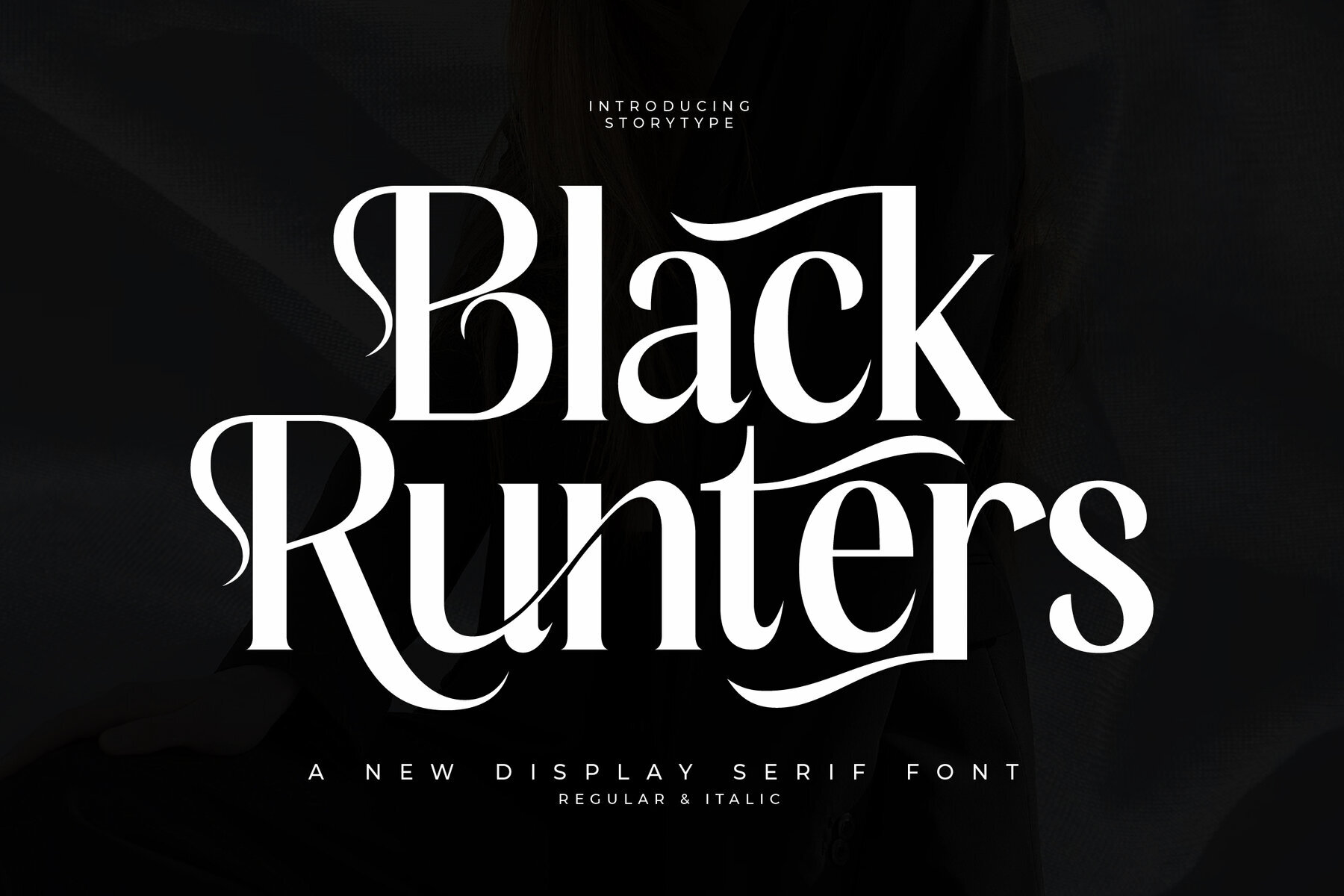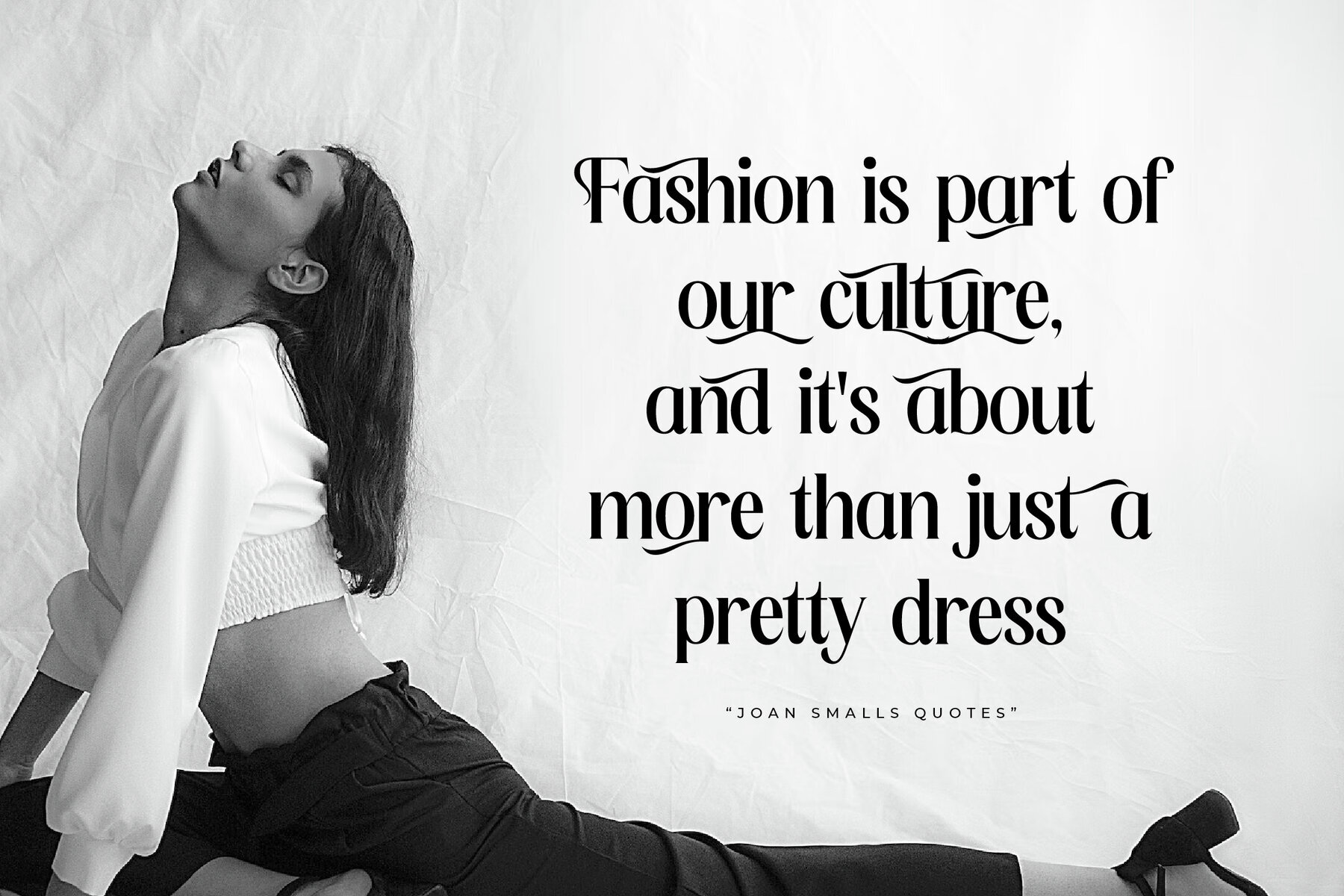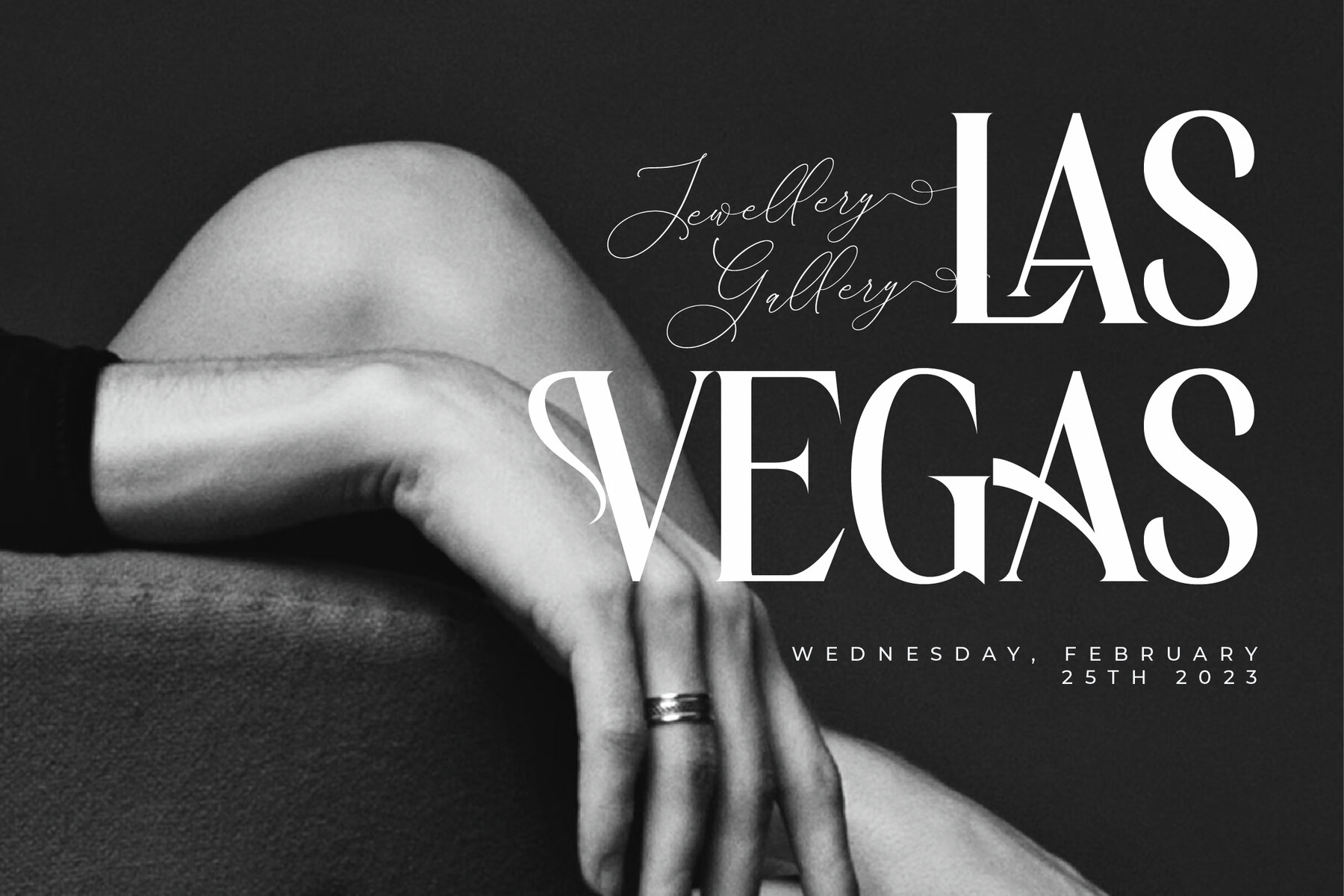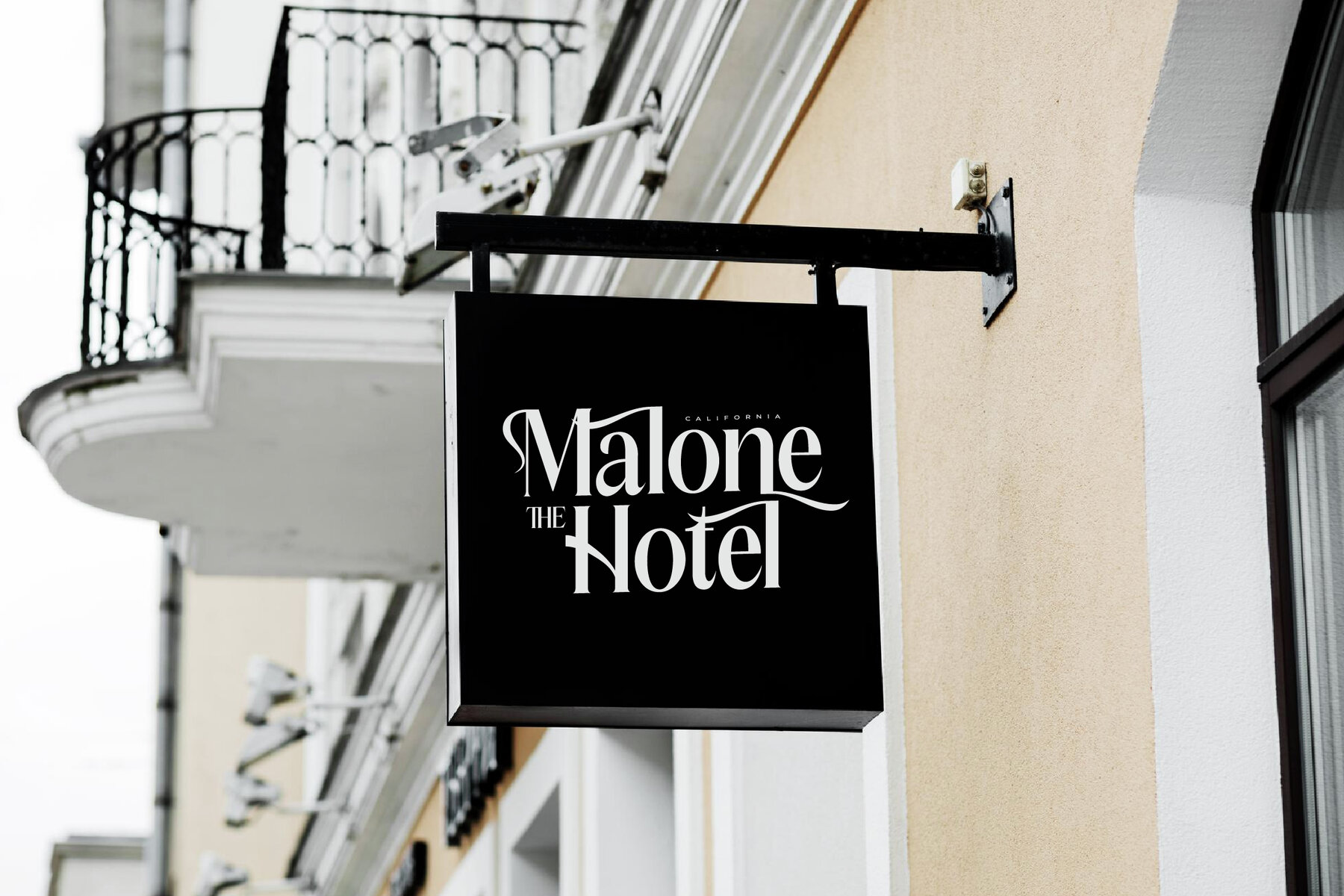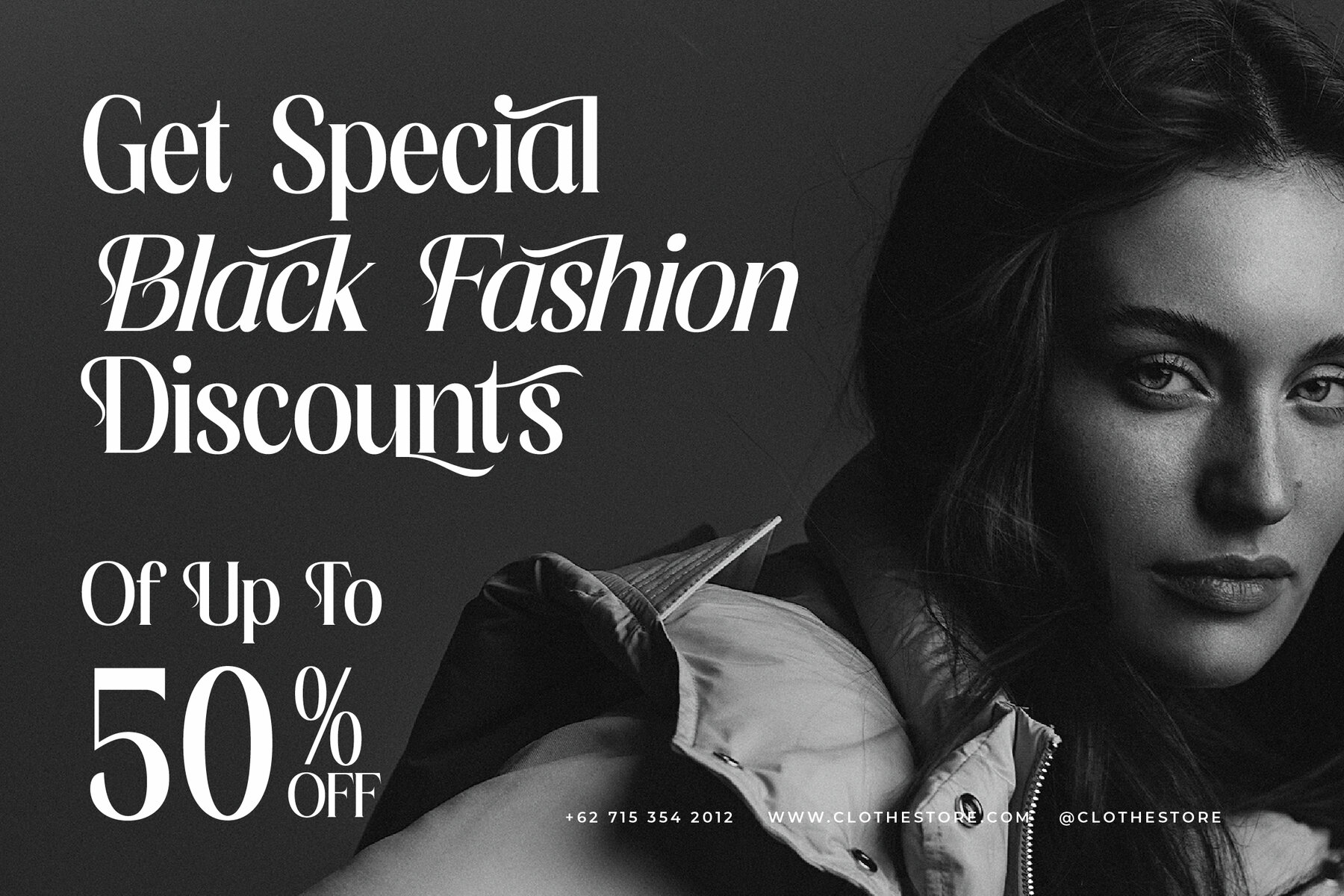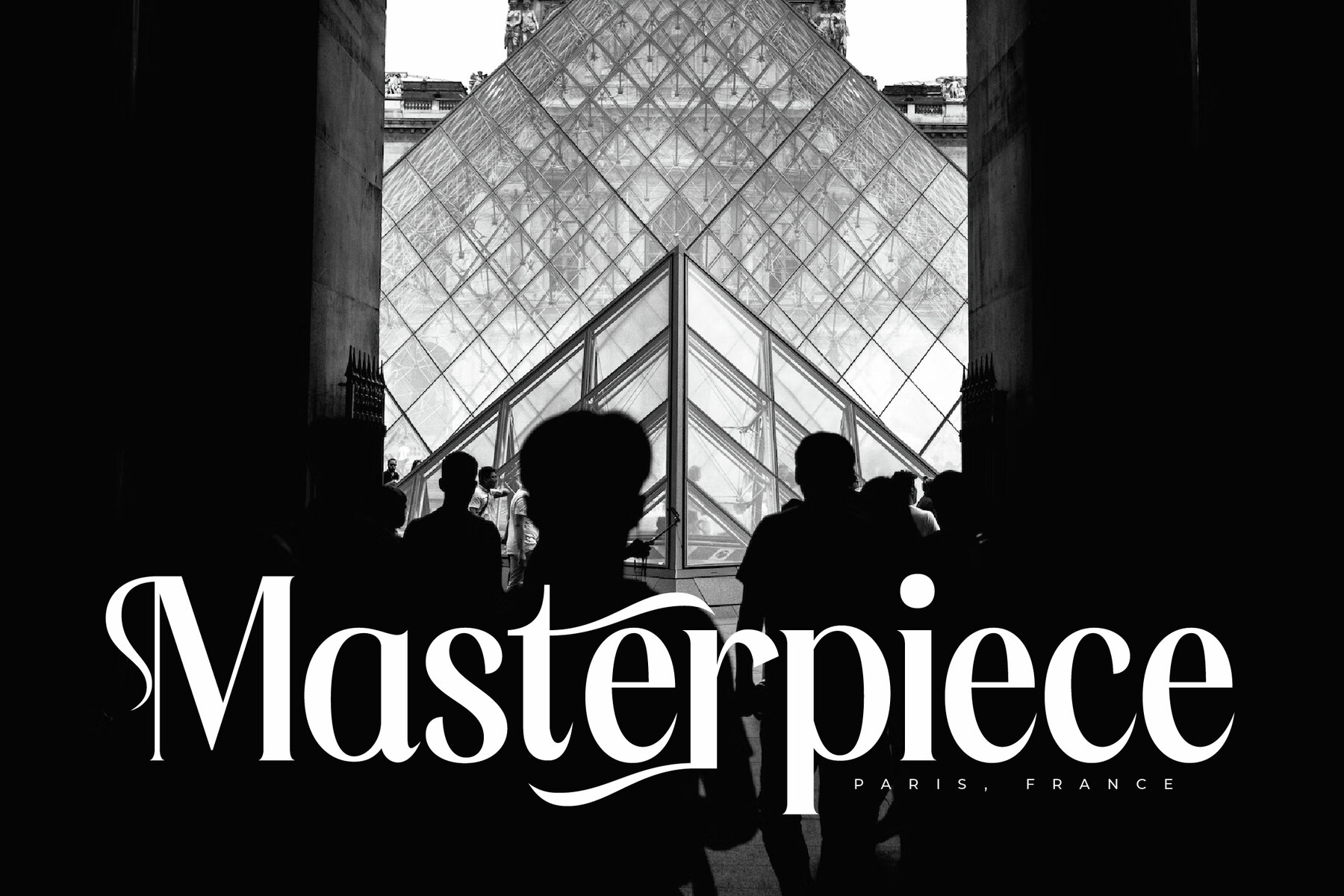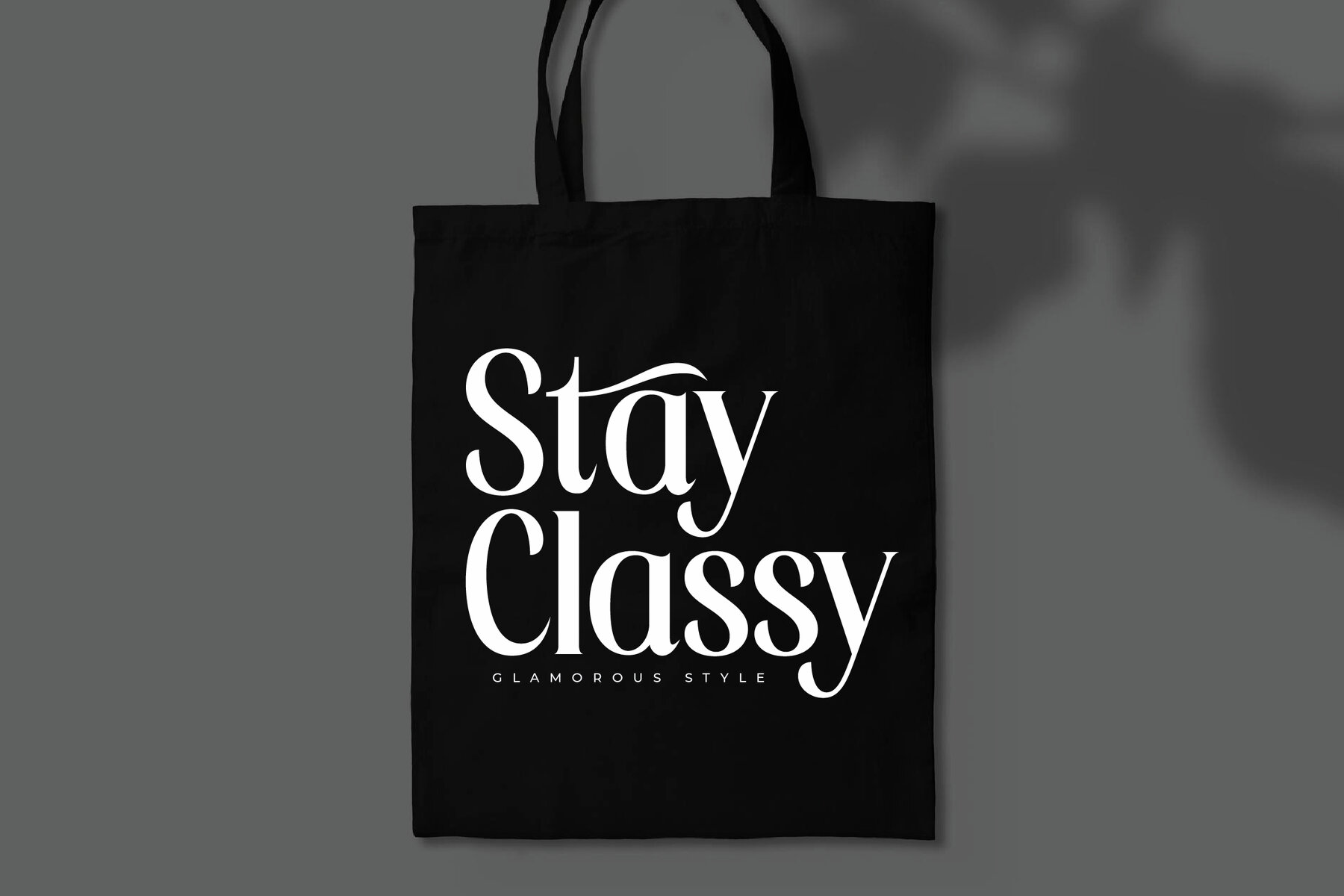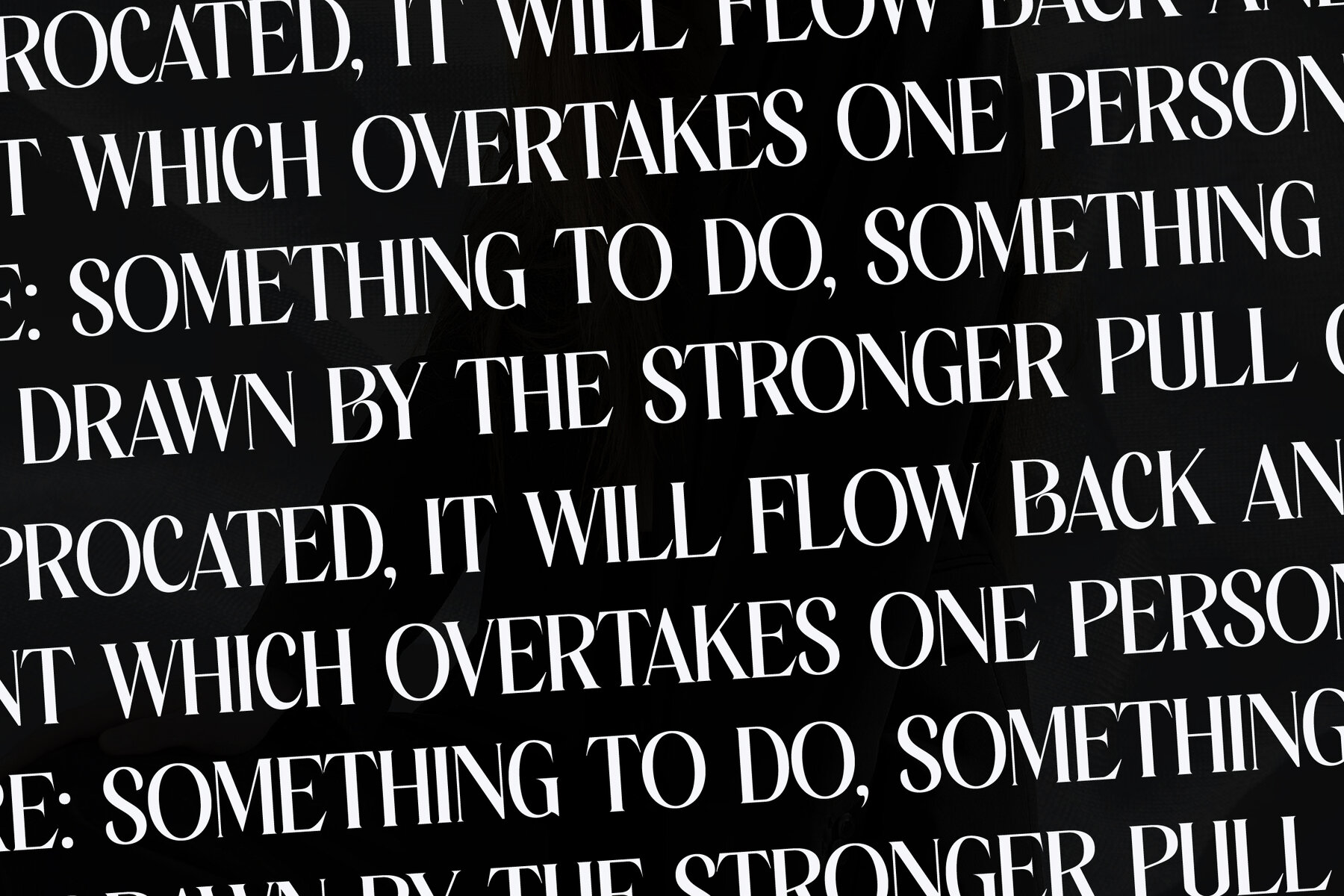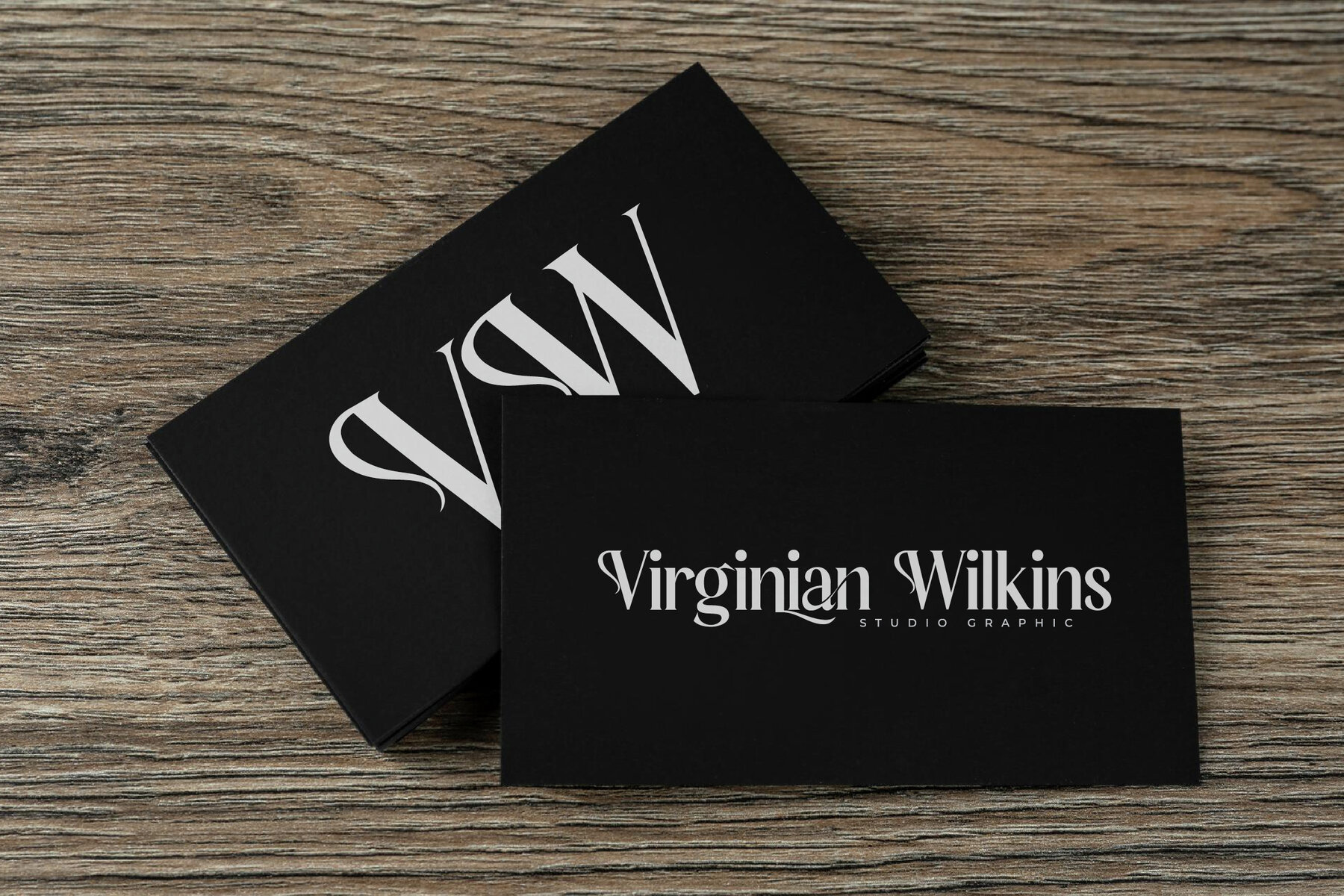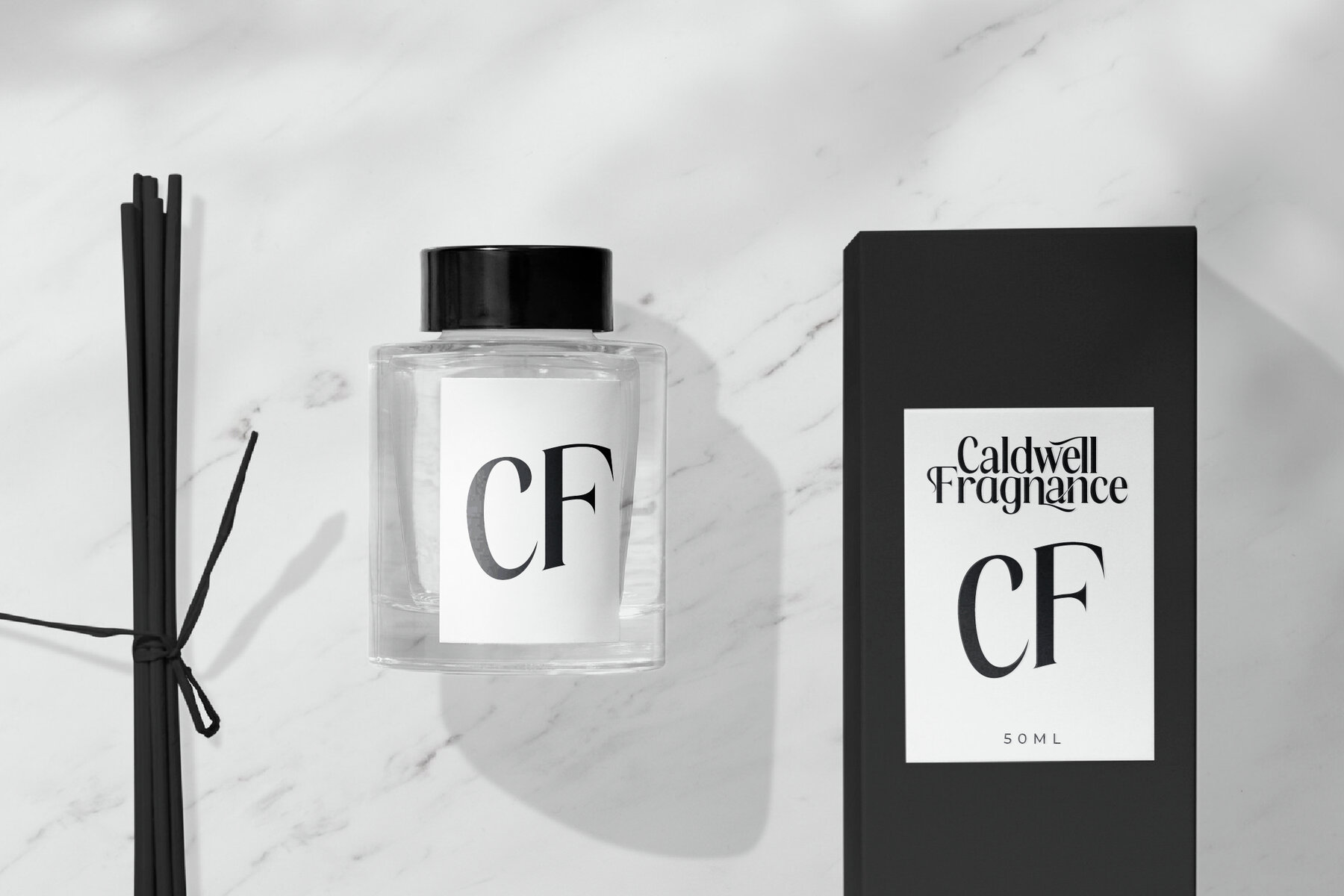
Black Runters Font
Black Runters Regular
Black Runters Italic
Discover the sophisticated elegance of Black Runters Typeface, a creation of Storytype Studio. This serif font blends modern and classic elements, offering a unique style perfect for any luxury or elegant design project. Whether you're crafting a logo, designing a book or movie title, or working on fashion branding, this typeface delivers a timeless appeal.Black Runters Typeface